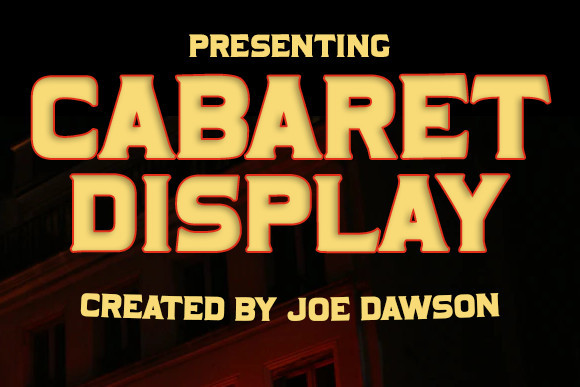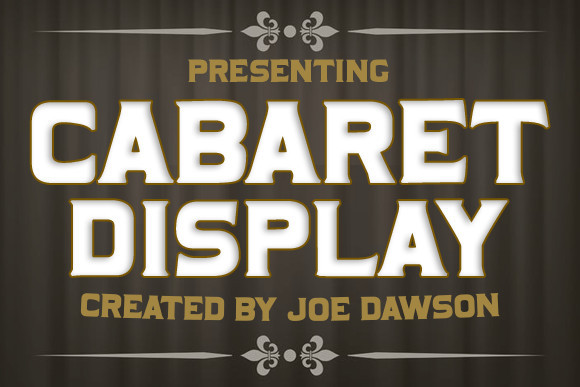
Cabaret Font
Cabaret Display is a bold, nostaligic Toulouse Lautrec(ian) poster font. It is perfect for any project in need of a vintage, artistic feel.